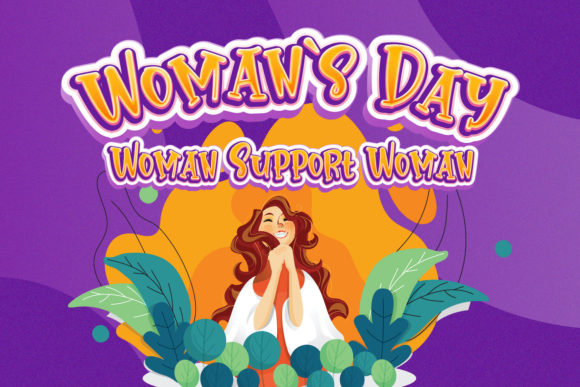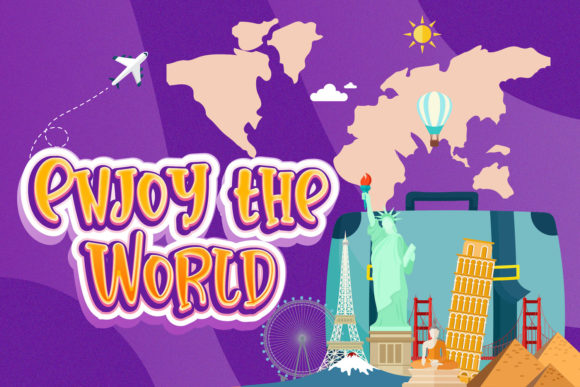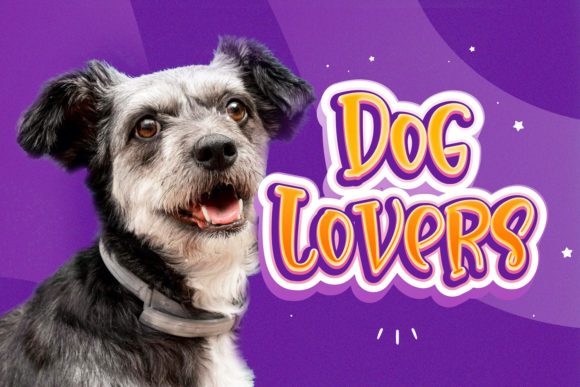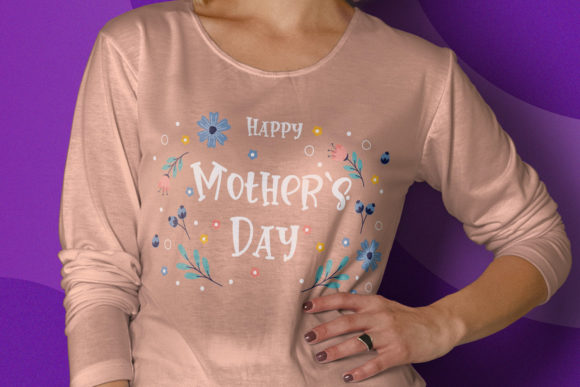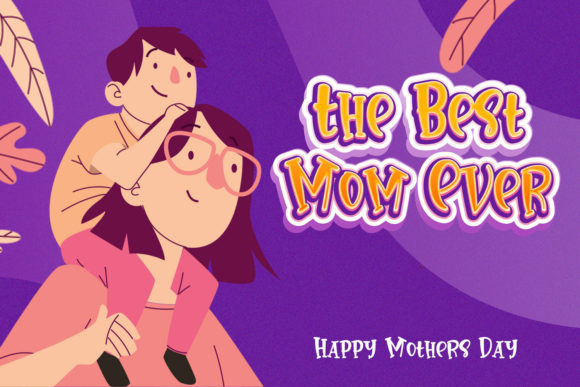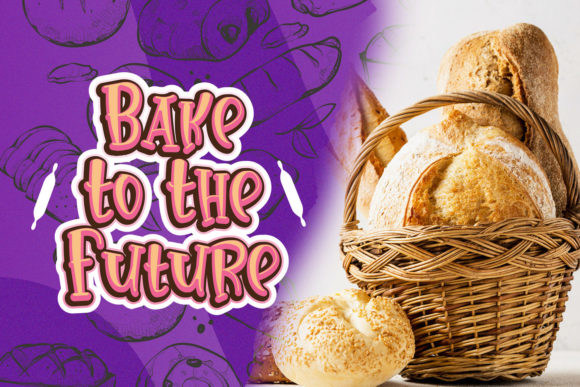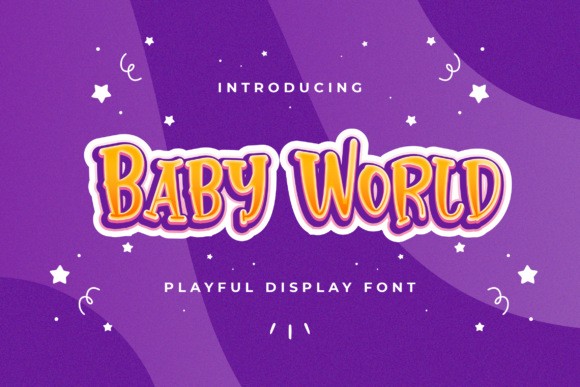
Baby World Font: Add a Joyful Touch to Your Designs
Are you looking for a font that can add a playful and whimsical touch to your designs? Look no further than the Baby World Font! This cute and quirky display font is perfect for designers and crafters who want to create fun and engaging projects. In this article, we’ll take a closer look at the Baby World Font, its features, and how you can use it to make your designs stand out.
What is Baby World Font?
Baby World Font is a display font designed to bring a smile to your face. Its playful and quirky design makes it perfect for projects that require a touch of whimsy and fun. The font is carefully crafted to ensure that it is easy to read and understand, making it suitable for a wide range of applications.
Features of Baby World Font
- Cute and Quirky Design: The Baby World Font has a unique and playful design that is sure to grab attention.
- Display Font: This font is specifically designed as a display font, making it perfect for headlines, titles, and other display purposes.
- Easy to Read: Despite its playful design, the Baby World Font is easy to read and understand, making it suitable for a wide range of applications.
- Versatile: This font can be used for a variety of projects, including posters, flyers, brochures, and more.
Design Ideas Using Baby World Font
The Baby World Font is incredibly versatile and can be used for a wide range of design projects. Here are a few ideas to get you started:
- Children’s Party Invitations: Use the Baby World Font to create fun and playful invitations for children’s parties.
- Kids’ Book Covers: Add a touch of whimsy to kids’ book covers with the Baby World Font.
- Playful Posters: Create eye-catching posters for kids’ events or activities using the Baby World Font.
- Crafting Projects: Use the Baby World Font to add a personal touch to your crafting projects, such as scrapbooking or card making.
Here are a few tips and tricks to help you get the most out of the Baby World Font:
- Use it Sparingly: While the Baby World Font is playful and fun, it can be overwhelming if used excessively. Use it sparingly to add a touch of whimsy to your designs.
- Pair it with Other Fonts: Pair the Baby World Font with other fonts to create a unique and interesting design.
- Experiment with Colors: Experiment with different colors to find the perfect combination that works with the Baby World Font.
In conclusion, the Baby World Font is a cute and quirky display font that can add a joyful touch to your designs. Its playful and whimsical design makes it perfect for a wide range of projects, from children’s party invitations to playful posters. With its ease of use and versatility, the Baby World Font is a must-have for designers and crafters looking to add a touch of fun to their projects.